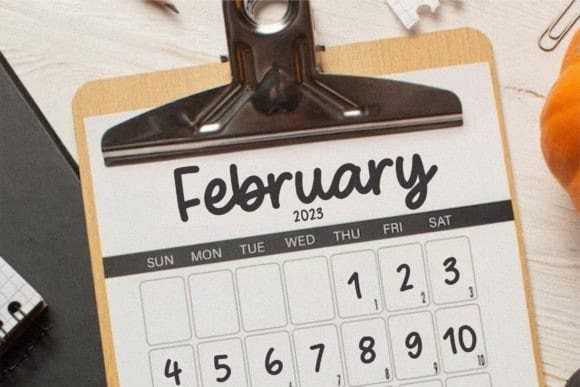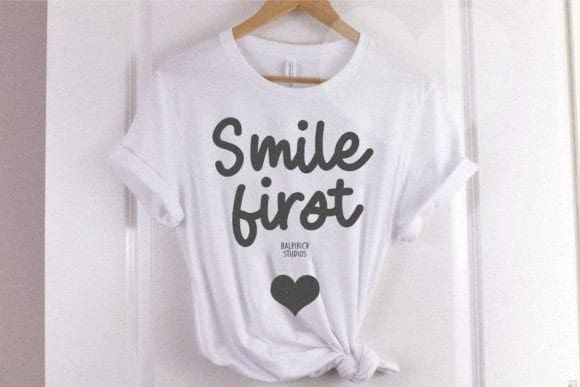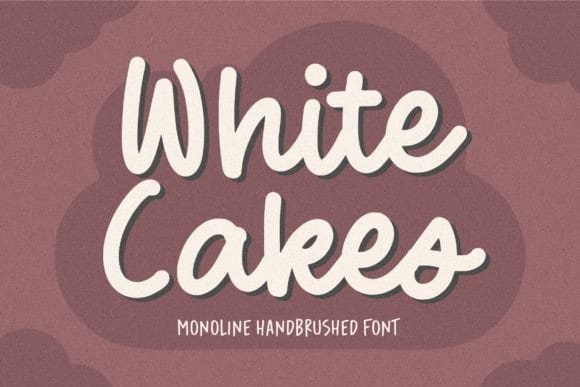
White Cakes Font
White Cakes Font – a monoline handbrushed font that’s clean, elegant and perfect for a range of design projects! With its smooth, effortless lines and understated sophistication, this font is the perfect choice for those who want a modern look that’s still timeless in its appeal.
Crafted with precision and care, this font is incredibly versatile and can be used for a range of design projects, including logos, branding, invitations, packaging, and more. With its simple yet refined aesthetic, it’s sure to make a lasting impression on anyone who sees it.